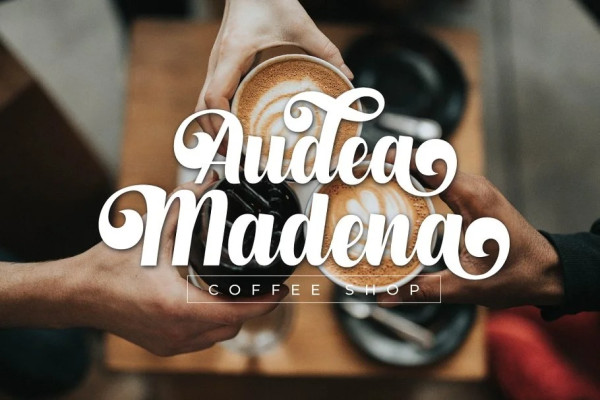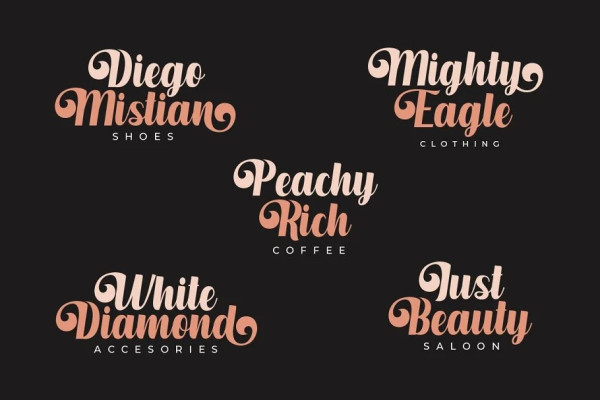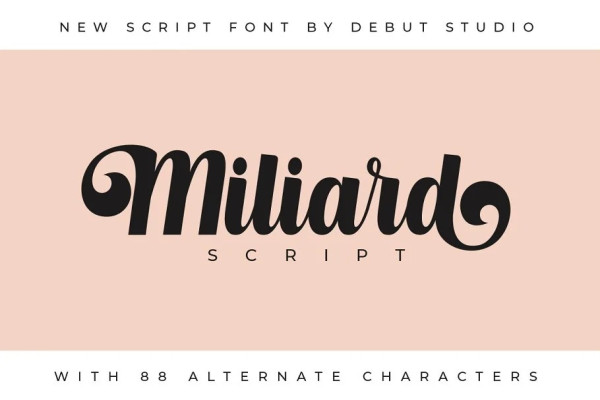
Miliard Script Font
Miliard Script Font, is our latest script font with beautiful cursive and this font inspired from my handlettering. so suitable for design needs such as logos, postcards, headlines, posters, branding, T-shirts, postcards and much more.